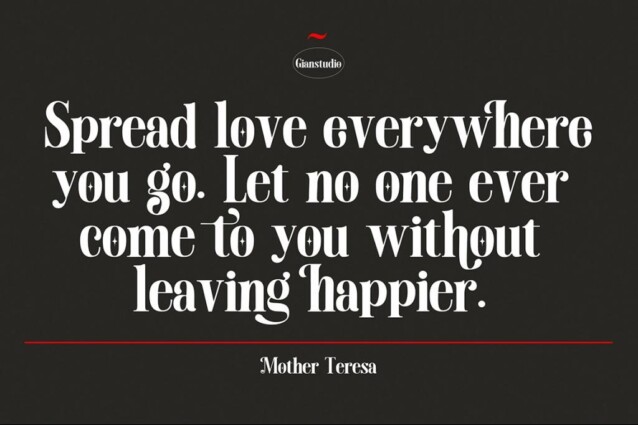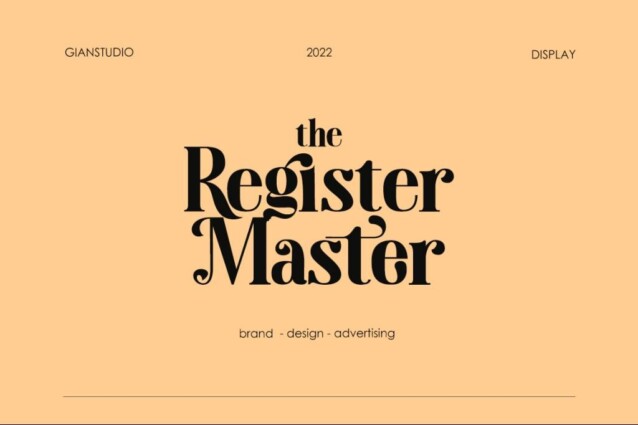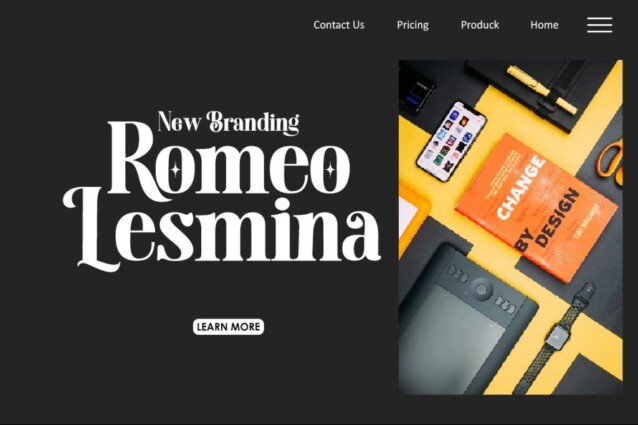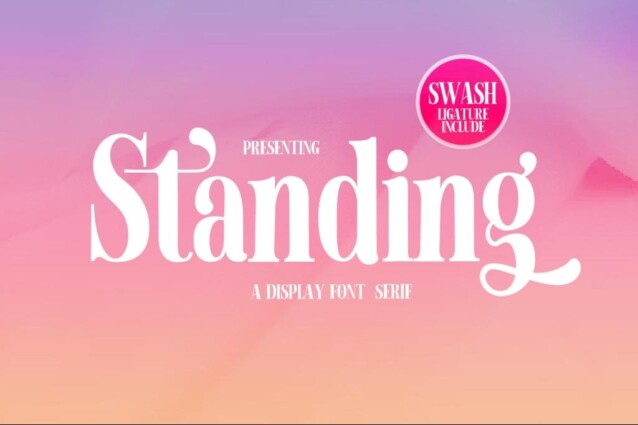
Standing Font
Standing Font is a typeface that exudes elegance and luxury. With its condensed form and modern-classic design, it adds sophistication to any project. If you need to add a sophisticated and fashionable look to your designs, this font is a perfect choice.